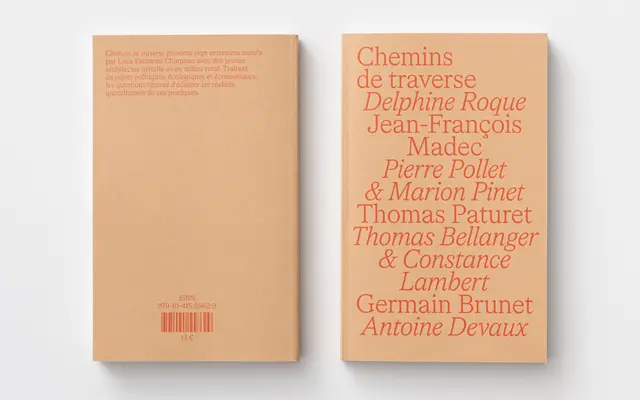
Cedrat
A three-optical-size serif drawn from 19th-century French 'Hollandaises' type, with a genuinely cursive italic and 1,030 glyphs across six weights per size.
Designed by Emmanuel Besse and released in 2024, Cedrat revives the hybrid-axis forms of Berthier & Durey's 1895 specimen, where contrast axes shift between letters rather than following a single consistent angle. The family resolves the original's display-only limitations by splitting across three optical sizes: Display for high-contrast titling, Standard for intermediate use, and Text for sustained reading. The italic departs from the historical source entirely, drawing instead from Times and ITC Caslon 223 to achieve genuine cursive character rather than a mechanical slant.
Derived from 19th-century 'Hollandaises' typefaces with mixed upright and oblique contrast axes, placing it at the transitional boundary between old-style and modern serif conventions. The hybrid axis behaviour and high contrast are characteristic of late 19th-century European type.